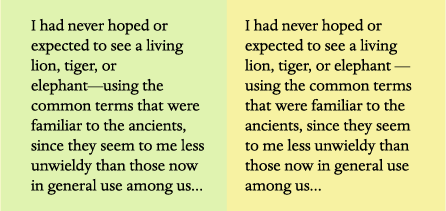
This month, read about em and en dashes in print and on the Web; specimen books; and the best way to convert quotation marks and primes from dumb to smart and back again.
Space or No Space
Q. There is discussion in my office about whether it is acceptable to put spaces before and after em dashes. We see it a lot on the Web, but not so often in print. Can you settle this for us?
A. Good question, and one that gives me the chance to expound on a typographic detail near and dear to my heart! Here's the low-down: the space surrounding en and em dashes (as well as the width of the dashes themselves) vary from font to font. In many fonts, the en and em dashes have little or no space around them, making them set very tightly to the surrounding text.
In print, the addition of space around dashes is a question of esthetics; in the United States, it's common to add some space around tight dashes, but the practice can vary in other countries. You'll occasionally see a full word space added before and after dashes in print, but if the font in question has a large word space value (as many do), it can look too open. I personally don't like tight dashes and use the kern function to have complete control over how much space I add. Whichever method you choose is a question of taste, as either is an accepted typographic practice.
On the Web, it's a different story entirely. Unlike in print, Web copy flow (and the rag it creates) varies from user to user, depending on the browser, monitor resolution, and default font style and size. For this reason, you often see unsightly, deep rags resulting from narrow columns of copy containing long words, made worse by the lack of hyphenation in most Web copy. For this reason, I recommend adding a word space around dashes in Web copy to allow for more line break options.
Figure 1. The example on the left illustrates how a bad rag can result in Web copy when you don't add spaces around an em dash. The browser reads "elephant—using" as one word, and since there is no hyphenation on the Web, it carries the entire phrase to the next line, creating an unsightly hole. In the example on the right, I added word spaces around the em dash, allowing the browser to break the line in a more pleasing way. Set in Dante Pro, excerpted from The Lost Continent, by Edgar Rice Burroughs.
Printed Font Directories for Mac and Windows
Q. What's a good way to make a printable directory listing of all the fonts in my folders on my Windows system?
FontAgent Pro lets you print font directories (also called "specimen books") in several ways. Use the Font Compare feature to select fonts and preview them side-by-side on your screen. You can customize the text, including the size, color, and background. From there you can print a specimen book with samples of the text. Each font is labeled by name.
You can also use the Font Player to cycle through a selection of fonts on screen and print those previews. Preview templates include Paragraph View, ABC123, and Custom Text. These views are also customizable by point size, text, and background color.
To make and print a directory listing in Suitcase for Windows, simply go to the Print Font Sample Pages command. From there you can print samples from fonts in folders or from the Vault (new to version 11).
Dingbat Derivation
Q. I'm curious about the origin of referring to graphic symbols and fonts as "dingbats." What was a dingbat, before the word was applied to type?
A. The word "dingbat" began as a colloquial term for anything you didn't know the name of, similar to "thingamajig." According to Allan Haley, Director of Words and Letters for Monotype Imaging, "the word 'dingbat' was given to symbols and sorts by 19th-century printers. It was easier to say 'dingbat' than ornaments, sorts, borders, logos, pointers, etc."
Probably the most well-known dingbat font is ITC Zapf Dingbats, designed by Hermann Zapf. This dingbat font became available to thousands (millions?) of users when Apple licensed it from ITC and built it into Apple's LaserWriter Plus.
Figure 2. This page from Golden Cockerel Type uses dingbats from the ITC Golden Cockerel Initial Ornament font in decorative as well as functional ways (as paragraph separators). Published by ITC.
Reflow Woes
Q. I design a newsletter in QuarkXPress 6.5 using the OpenType version of Minion Pro. When the client prints out the newsletter, type re-rags throughout the document. This presents a constant problem!